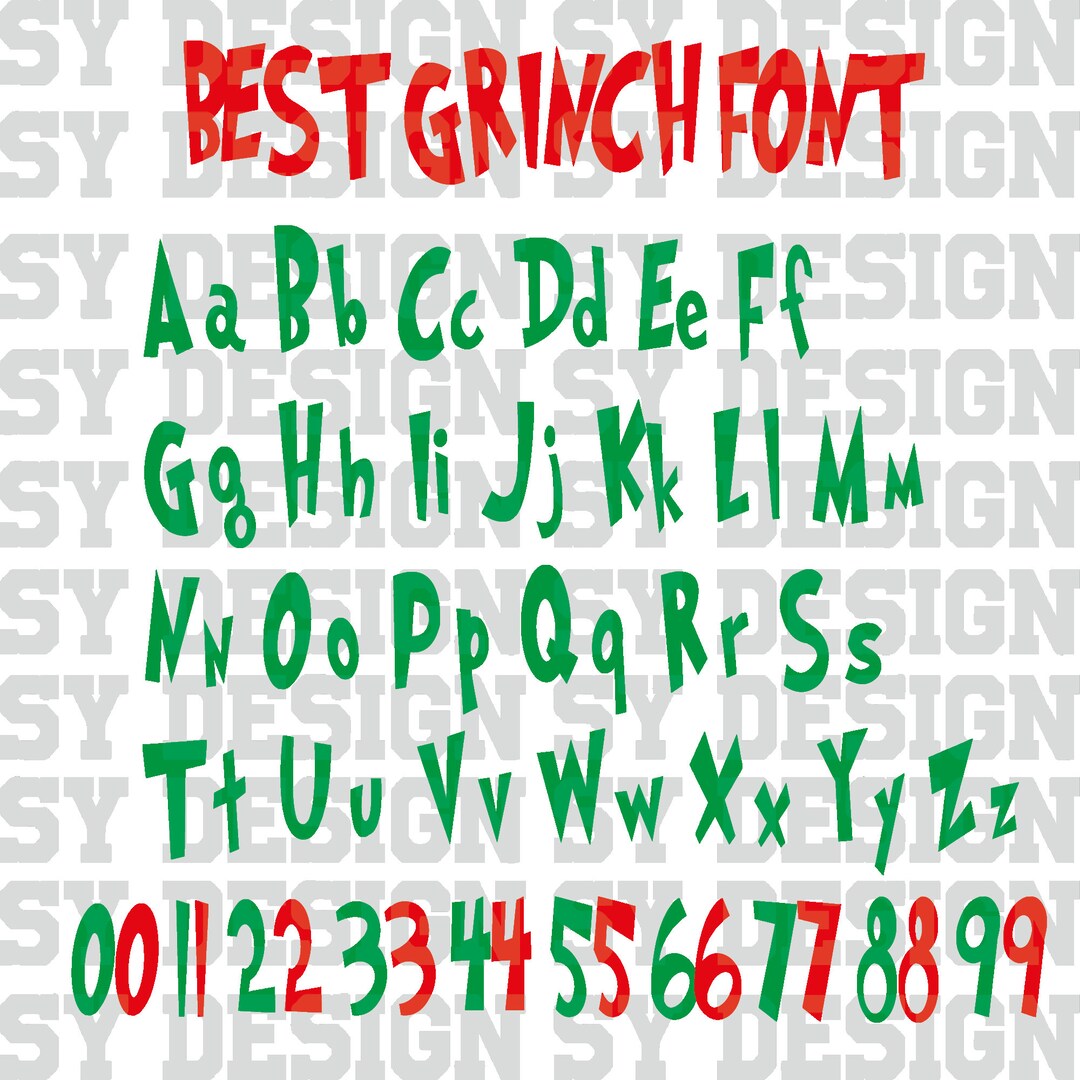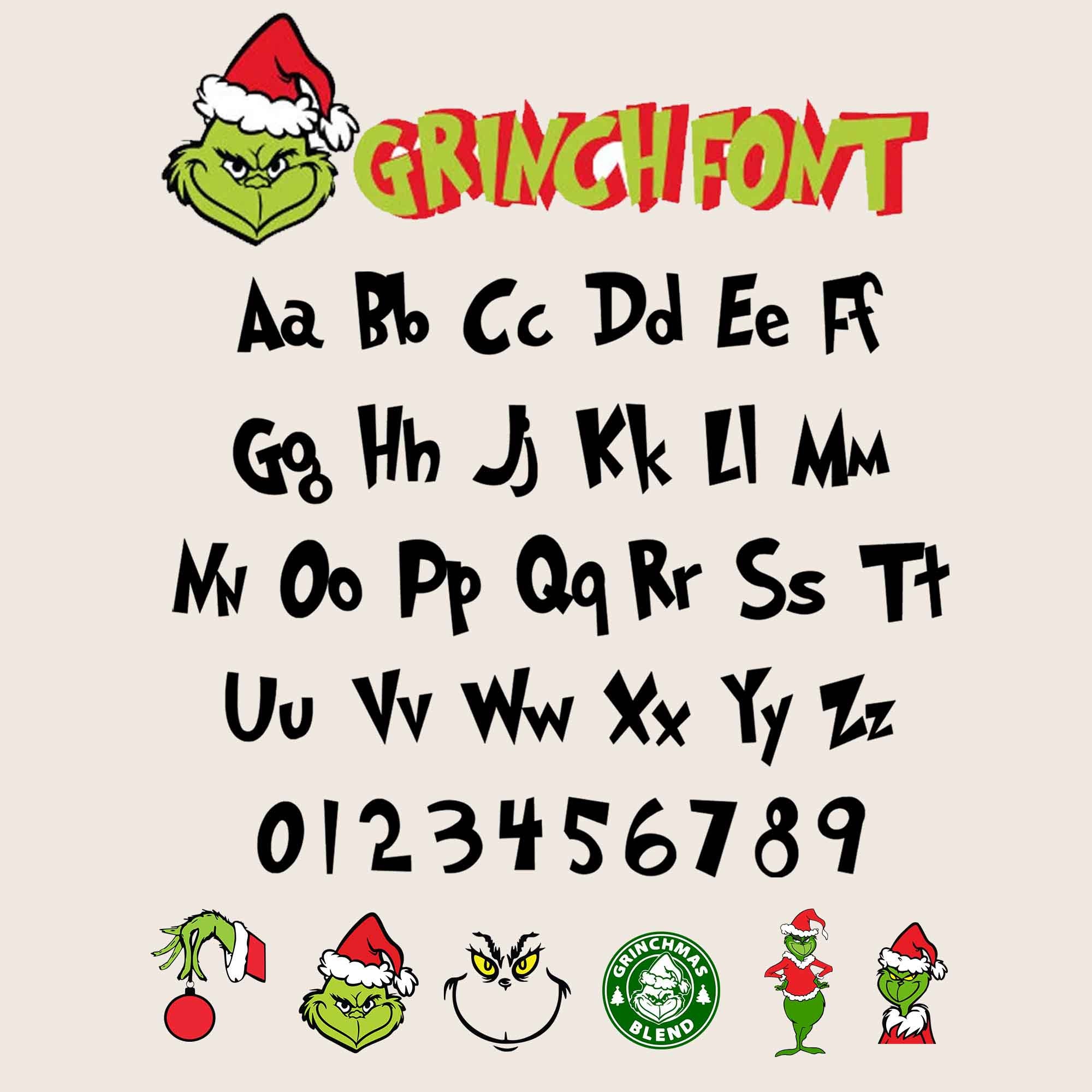
What Is The Grinch Font Called
What Is The Grinch Font Called - The “grinched” font is a whimsical and festive typeface that resembles the iconic font used in the popular holiday movie, the grinch. 42 matching requests on the forum.
The “grinched” font is a whimsical and festive typeface that resembles the iconic font used in the popular holiday movie, the grinch. 42 matching requests on the forum.